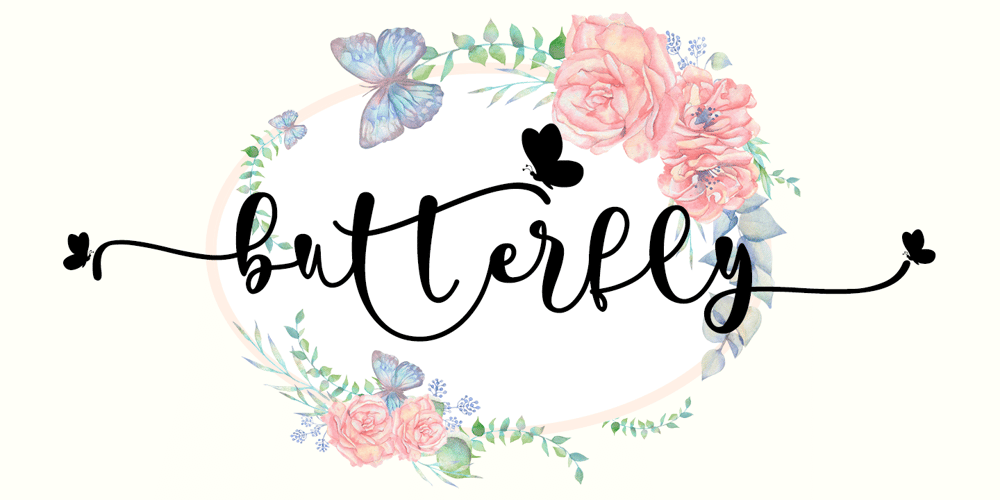
Pretty Butterfly Font Family was designed by Thomas Aradea and published by Letterara. Pretty Butterfly contains 2 styles and family package options. Pretty Butterfly is a sweet and beautiful handwritten font. It has a classy, elegant, and modern look which can be used for logos, branding, invitations, stationery, wedding designs, social media posts, and much more. This font is PUA encoded which means you can access all of the butterfly-themed glyphs and swashes with ease! It also features a wealth of special features including alternate glyphs and ligatures.